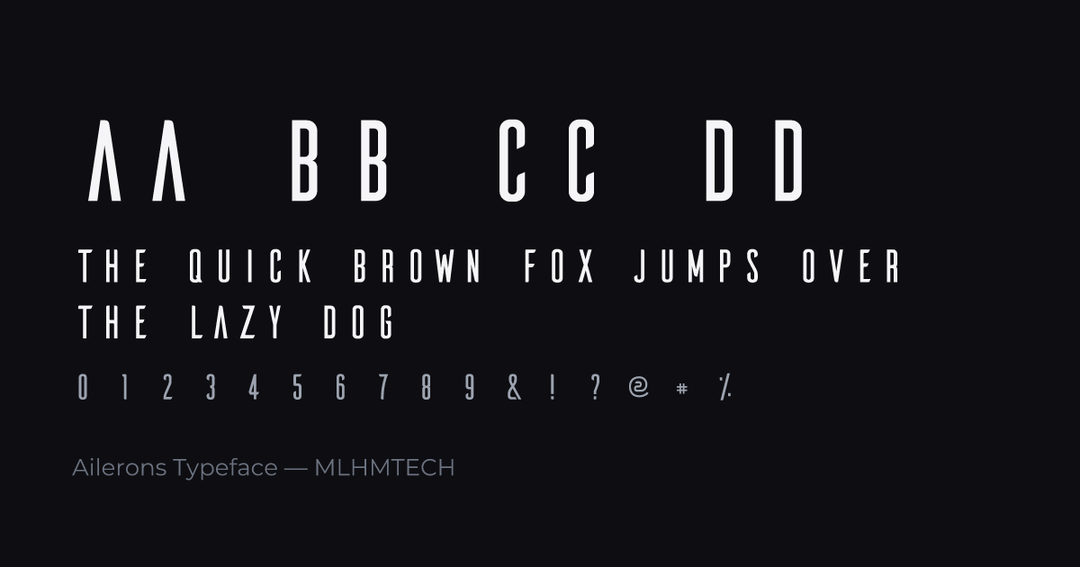
Ailerons Typeface
Ailerons is a sleek, modern sans-serif font with a minimalist aesthetic. Ideal for headlines, logos, and branding projects.
Ailerons is a contemporary sans-serif typeface that exudes simplicity and elegance. Its clean lines and geometric forms make it a versatile choice for a wide range of design projects, from corporate branding to editorial layouts.
This font is particularly well-suited for display purposes, such as headlines, titles, and logos, where its distinctive character can shine. The font's balanced proportions and legibility ensure it performs well in both print and digital media.